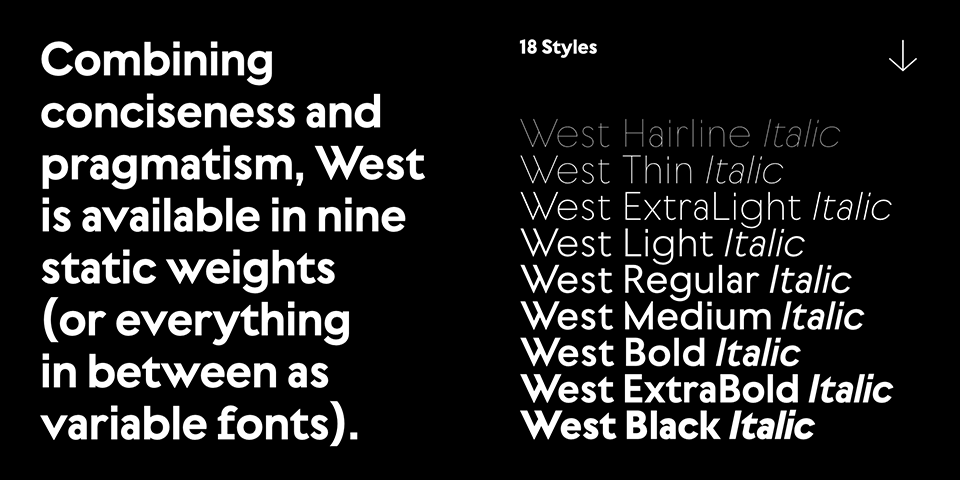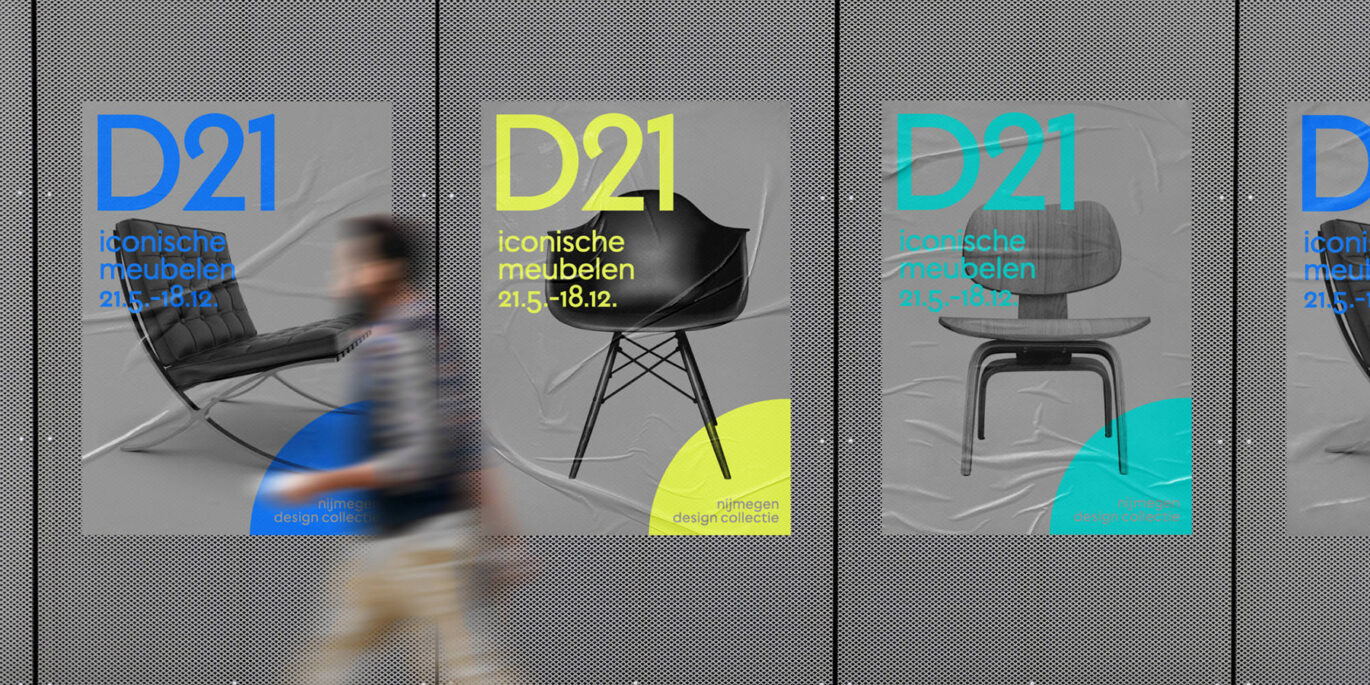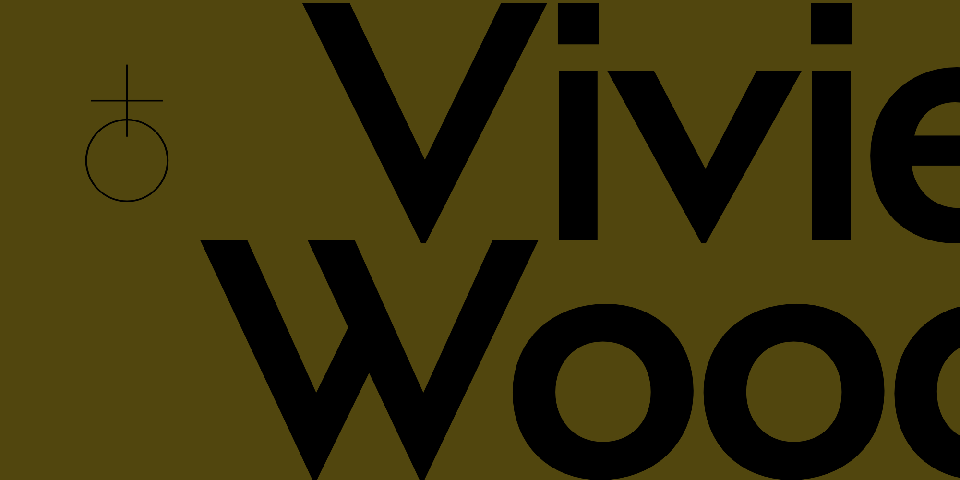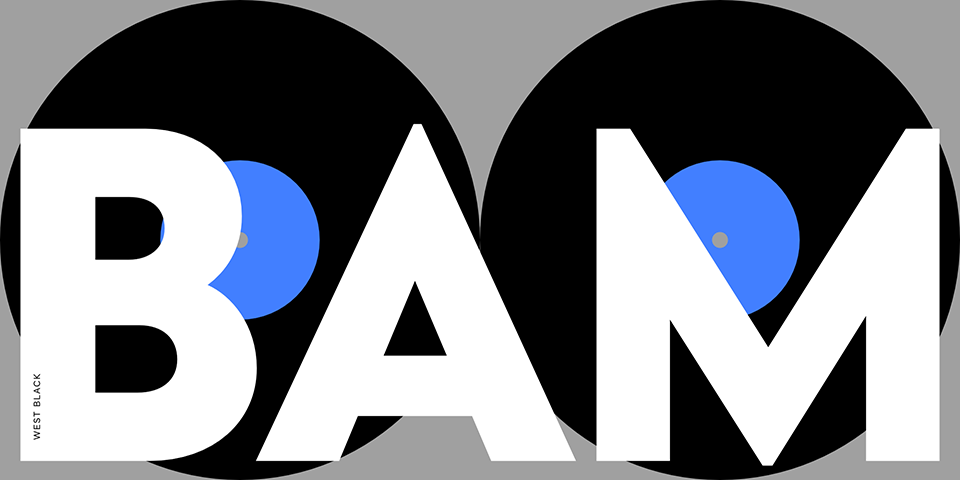
West. A Brand-New Geometric Sans Serif Typeface. Bold, Distinct, Original
West, the Fontwerk’s brand new typeface, designed by Daniel Perraudin, is a compelling mix of conciseness and pragmatism. West follows in the geometric sans serif tradition, yet it achieves independence and its own distinct character. West has a simple yet sophisticated formula: visually similar forms do not repeat. It’s perfect for branding, wayfinding and editorial projects.
West
The following geometric shapes: square, circle, and triangle, often fascinate creatives, not least those who design typefaces. It’s therefore hardly surprising that many fonts that are rooted in these classical forms look rather similar. Although the construction of West follows the same geometric tradition, it achieves independence and its own distinct character. It has a simple yet sophisticated formula: visually similar forms do not repeat.
Combining conciseness and pragmatism, it presents itself as timelessly modern but has its roots firmly planted in the practicality and functionality of classical modernism. West succeeds in reinterpreting the concept of geometric sans serifs in an original way. Behind its apparent lightness lie a multitude of different design decisions by its designer Daniel Perraudin.
In order to maintain a harmonious canon of shapes and to do justice to its construction and symmetry, he varied individual letter widths (e.g. a narrow a and s in contrast to the wide b, n, and J). He emphasized this unique character further with unusual glyphs such as W, t, f, 2, the alternative forms of the italic Q, the diagonal endings, or angular dots. The characters beautifully oscillate between Art Deco influences (e.g. M, N, V, 3) and more technoid, monospaced influences of the nineties (e.g. f, alternative r) as well as the classical effect of fully reduced geometric grotesques (e.g. t, d, g, C, G, 9). Altogether, these design idiosyncrasies result in a compelling, contemporary mix.
The range of West is also something rather special in the geometric genre: nine font weights ranging from Hairline to Black, matching italics as well as variable fonts that are all included in the Complete Package, giving the user full flexibility.
Thanks to the exceptionally open “un-compact” finish, West is recommended not only for display use but also for smaller text or for wayfinding or signage systems. This has already been put into practice for the wayfinding system in the Old Masters Gallery in Dresden, where individual icons were designed, which were then adopted into the present fonts and adapted to the respective stroke width.
Daniel Perraudin
With their bold and daring designs, the Olympic Games in Mexico in 1968 and in Munich in 1972 were high points in the world of visual branding according to Daniel Perraudin. This opinion certainly enjoys majority support amongst his peers and Fontwerk also strongly agrees. As founder and partner of Capitale Berlin/Vienna—a studio for branding, wayfinding systems, and editorial design—Daniel is a proven specialist for complex (typo)graphic projects.
His expertise is also rooted in his broad professional experience, Daniel studied Information Design at Stuttgart Media University and FH Joanneum Graz and then worked at KMS Team incorporate design and typography for clients such as BMW, Canyon, MAN, Porsche, and Sky. He later obtained a TypeMedia Master’s degree in Type Design at the Royal Academy of Fine Arts in The Hague. He has been passing on his knowledge to students in Graz for several years. Daniel’s first typeface Parka was successfully published by the legendary Font Bureau in 2010.